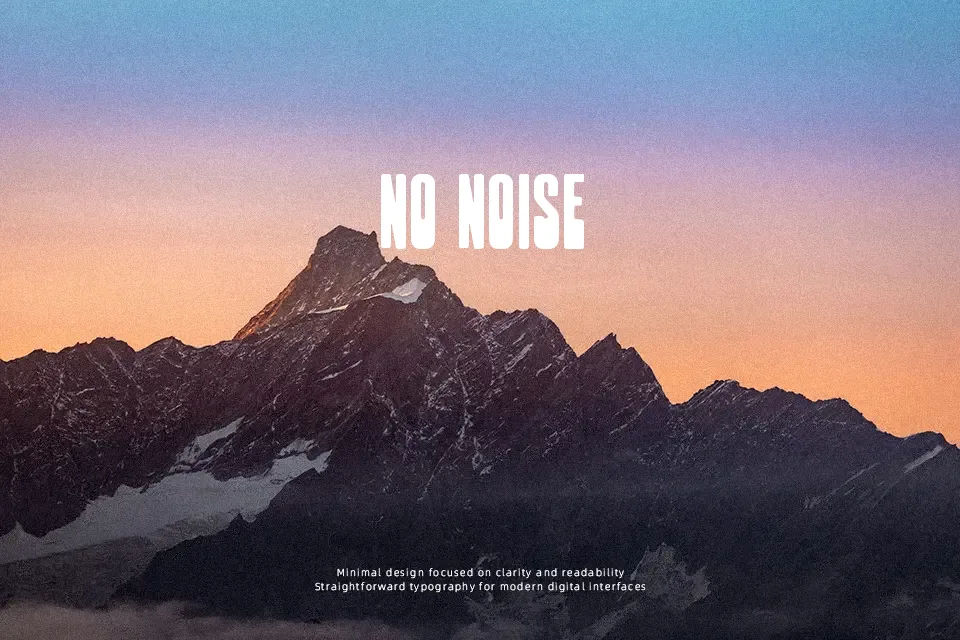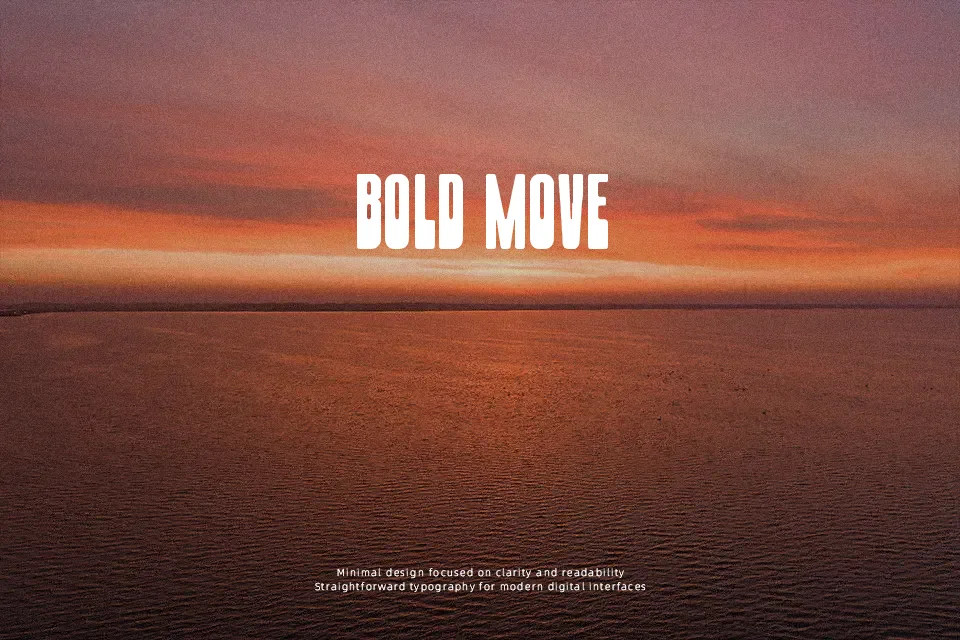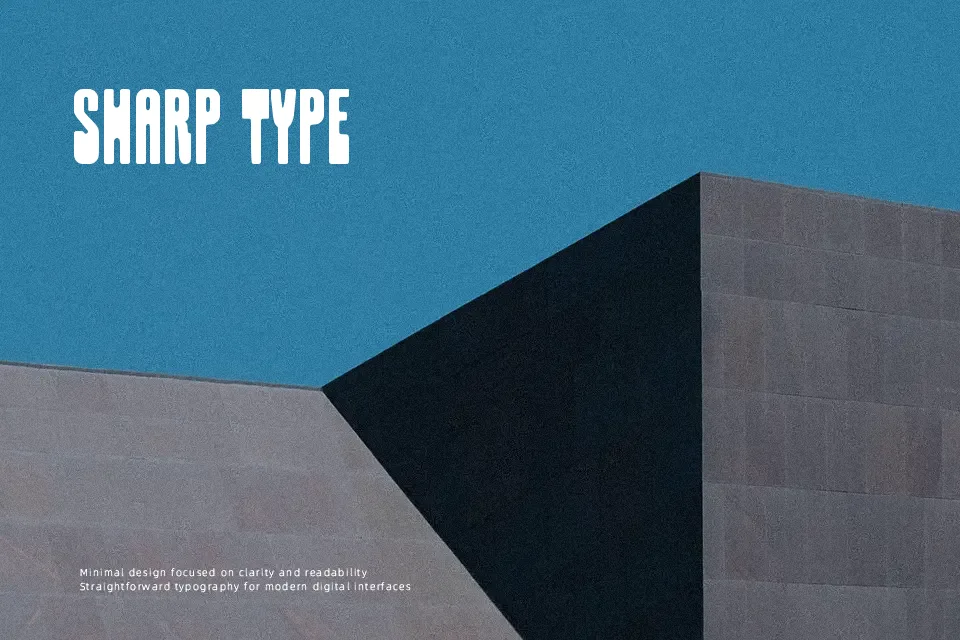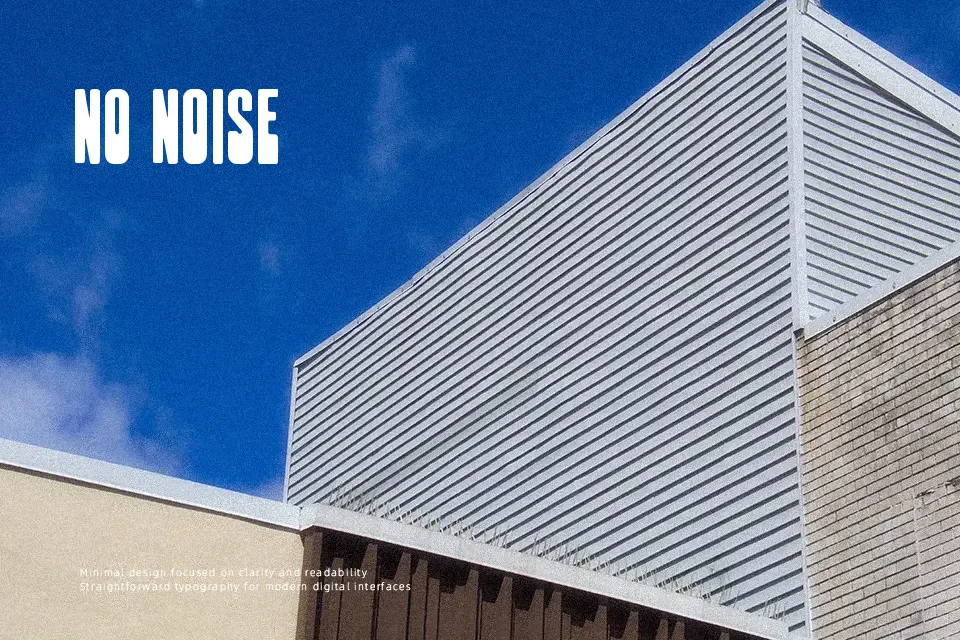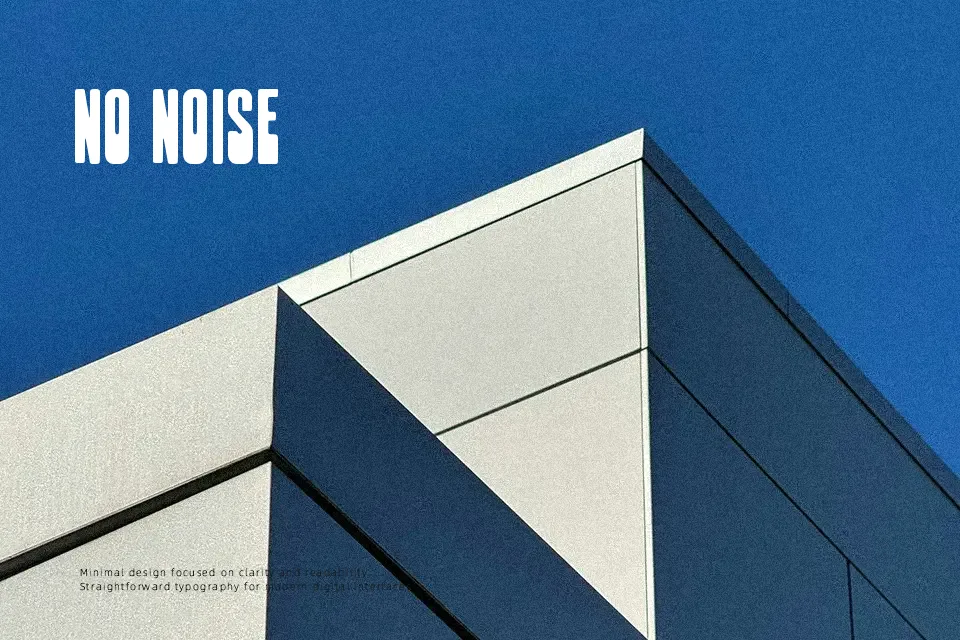
Retrohols Font
Retrohols Font delivers a striking visual presence through its heavy letterforms and condensed structure. The typeface features high-contrast thick strokes with smooth, rounded curves that give it a distinctively nostalgic feel. The tight spacing helps maintain clarity in larger headlines, allowing the bold characters to stand out beautifully in display applications. This structural density makes the design highly effective for vintage apparel graphics, music festival posters, and retro-themed branding. However, the thick proportions and dense forms reduce comfort during extended reading, making it less suitable for long paragraphs or small interface labels. Ultimately, the robust weight and playful curves provide excellent visual rhythm for short, impactful statements rather than continuous text.
vintage apparel graphics, music festival posters, retro-themed branding
long paragraph text, small interface labels, corporate reports
Perfect for branding, fashion, and headline, with a bold and decorative style.